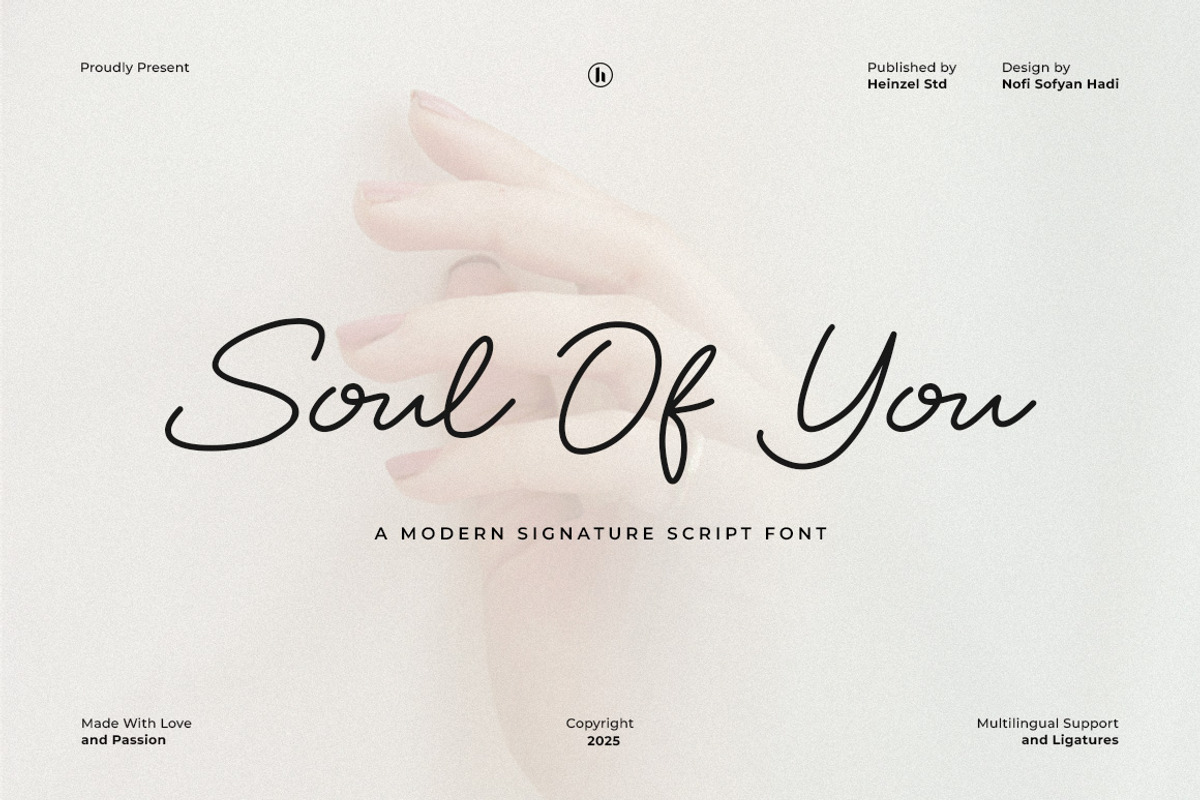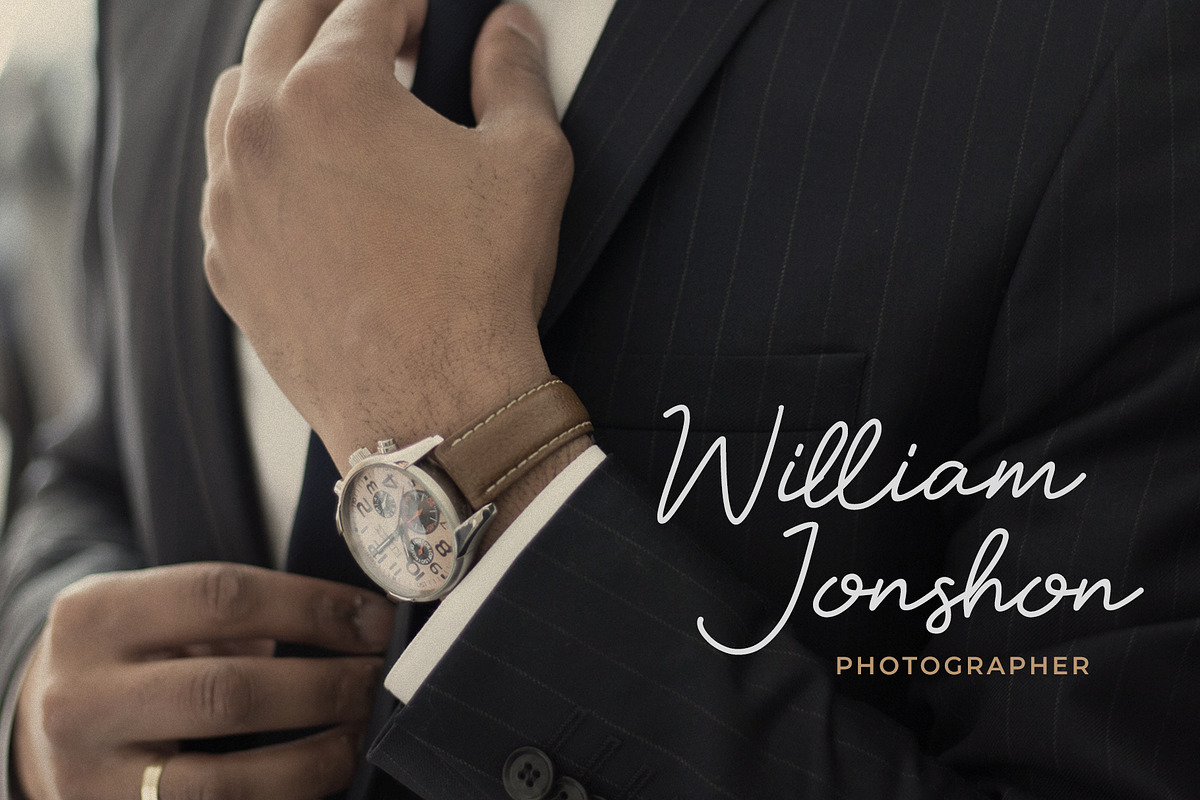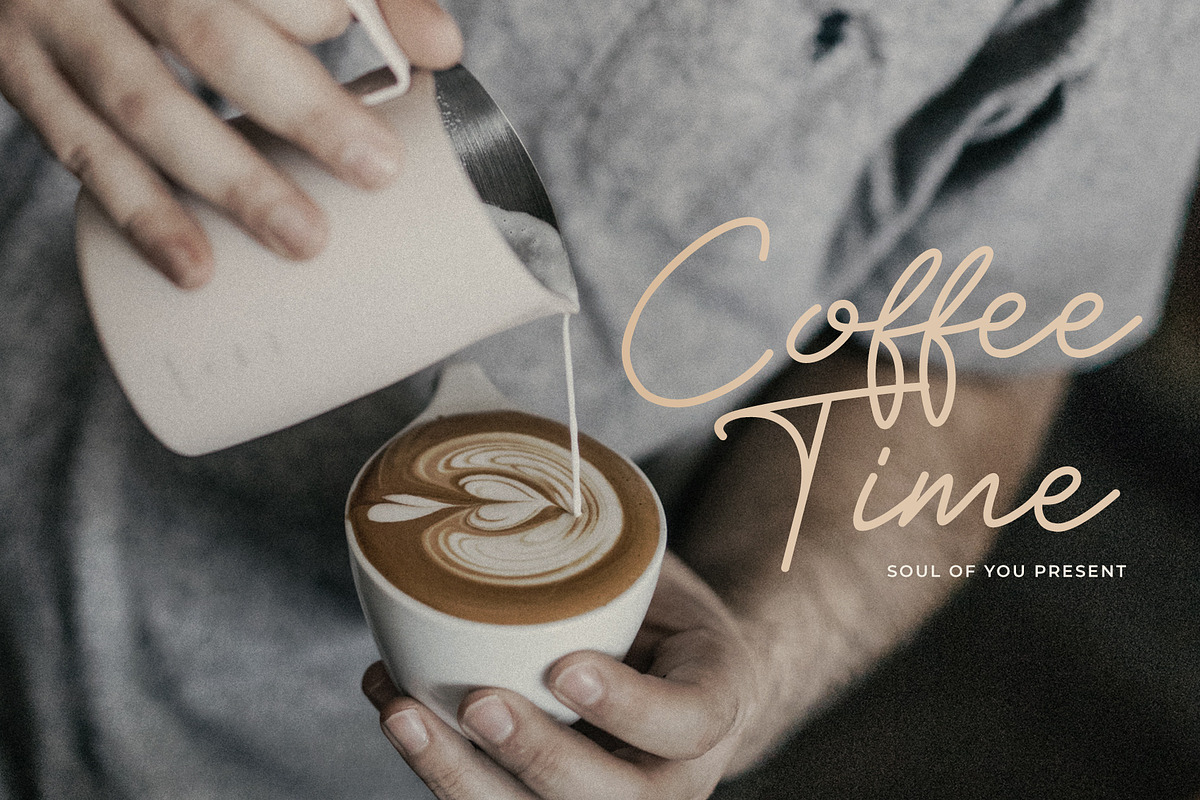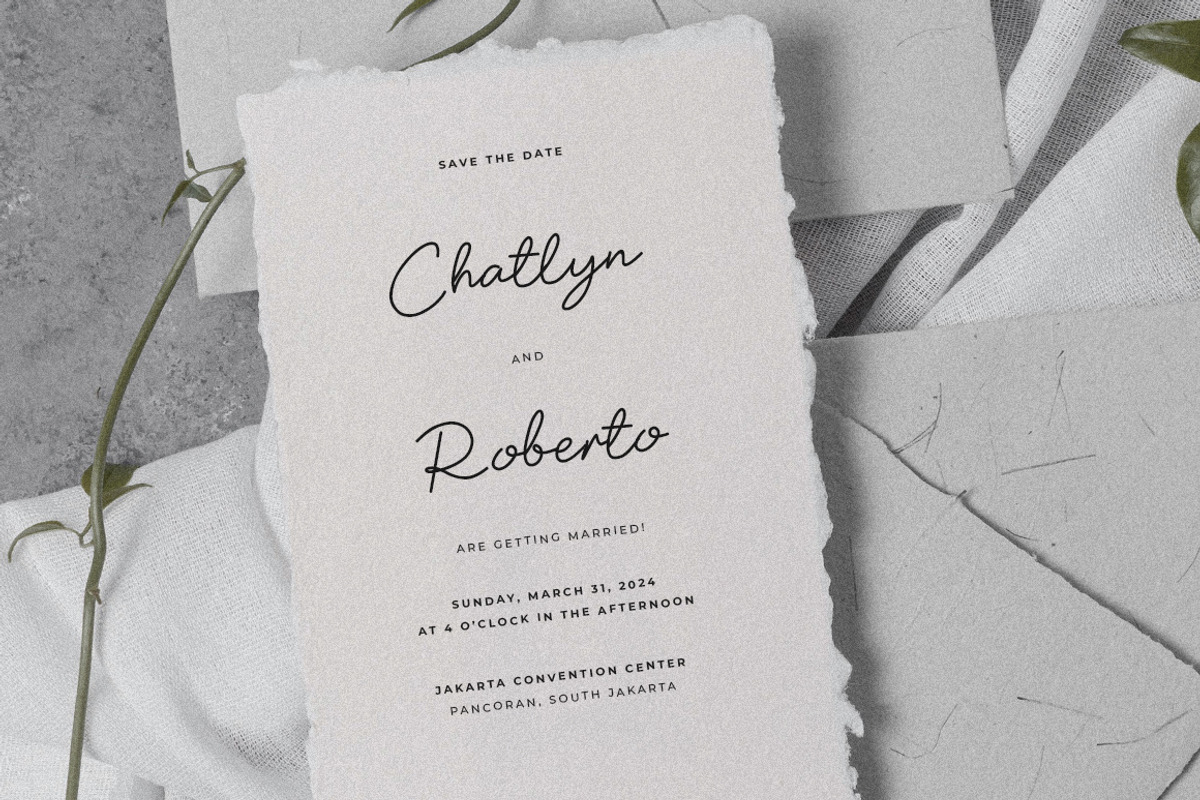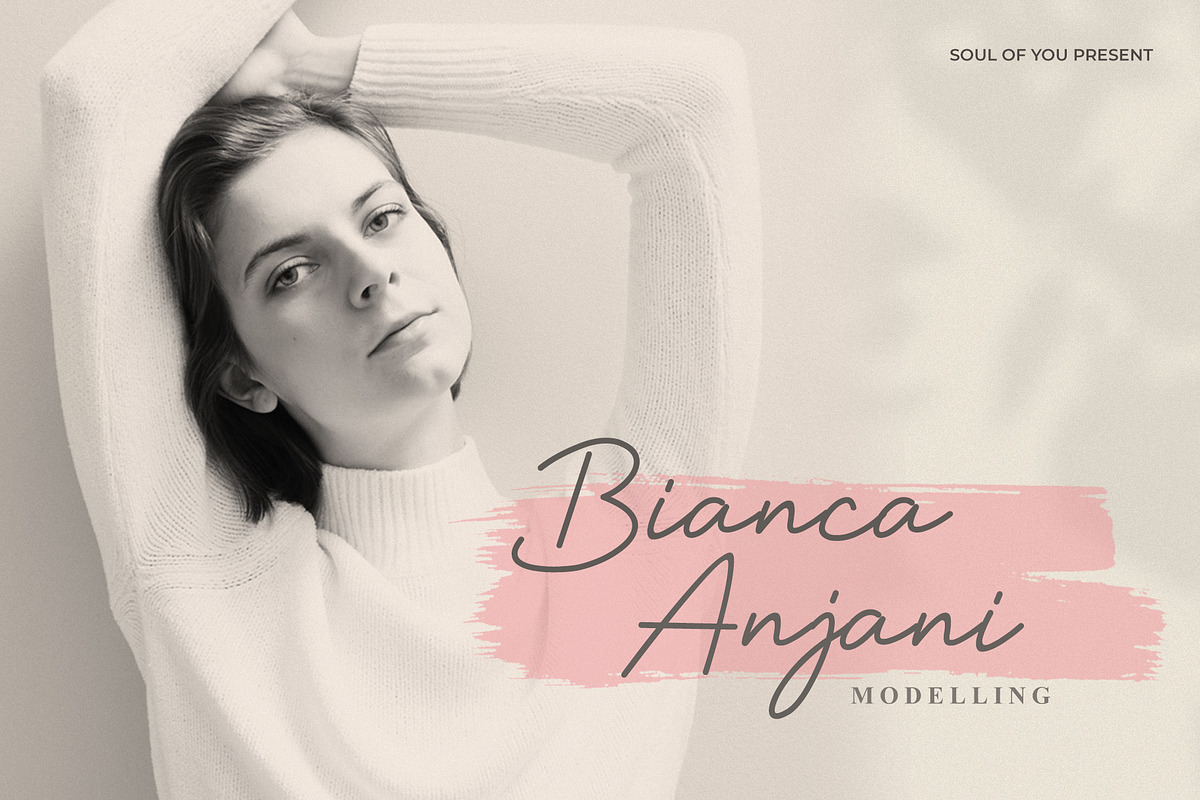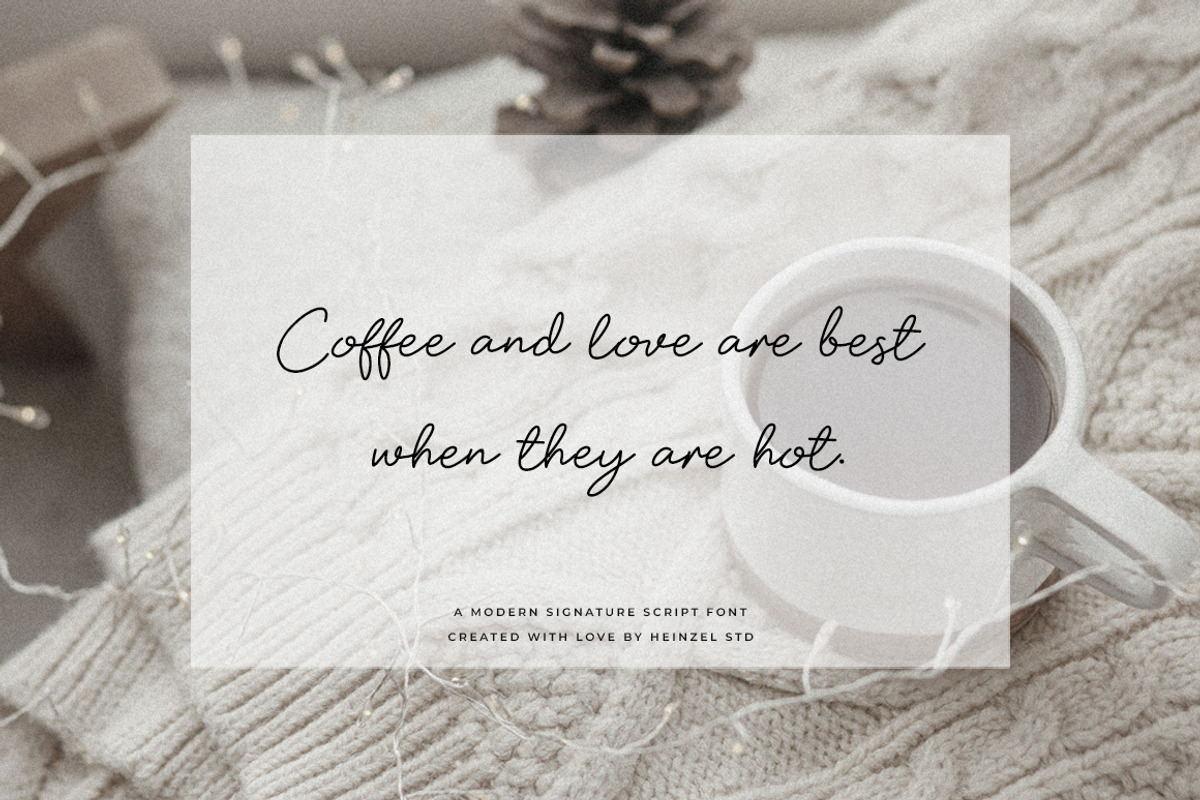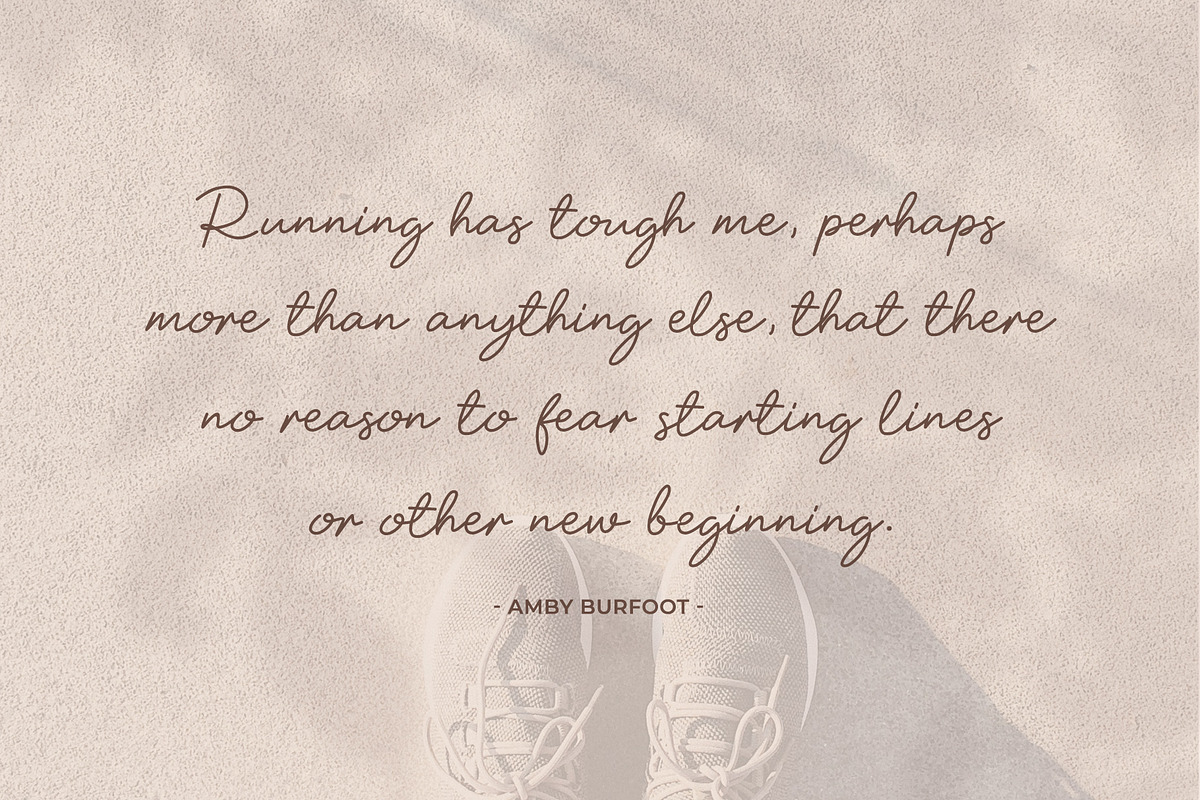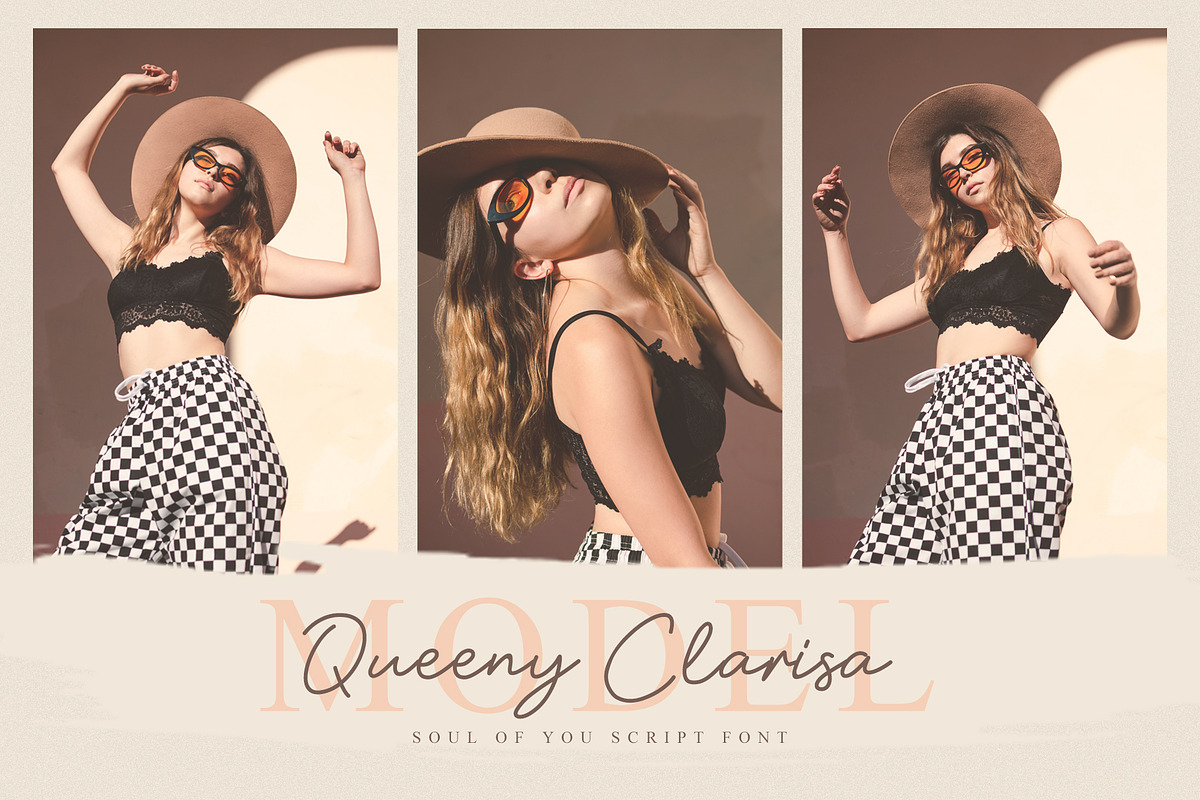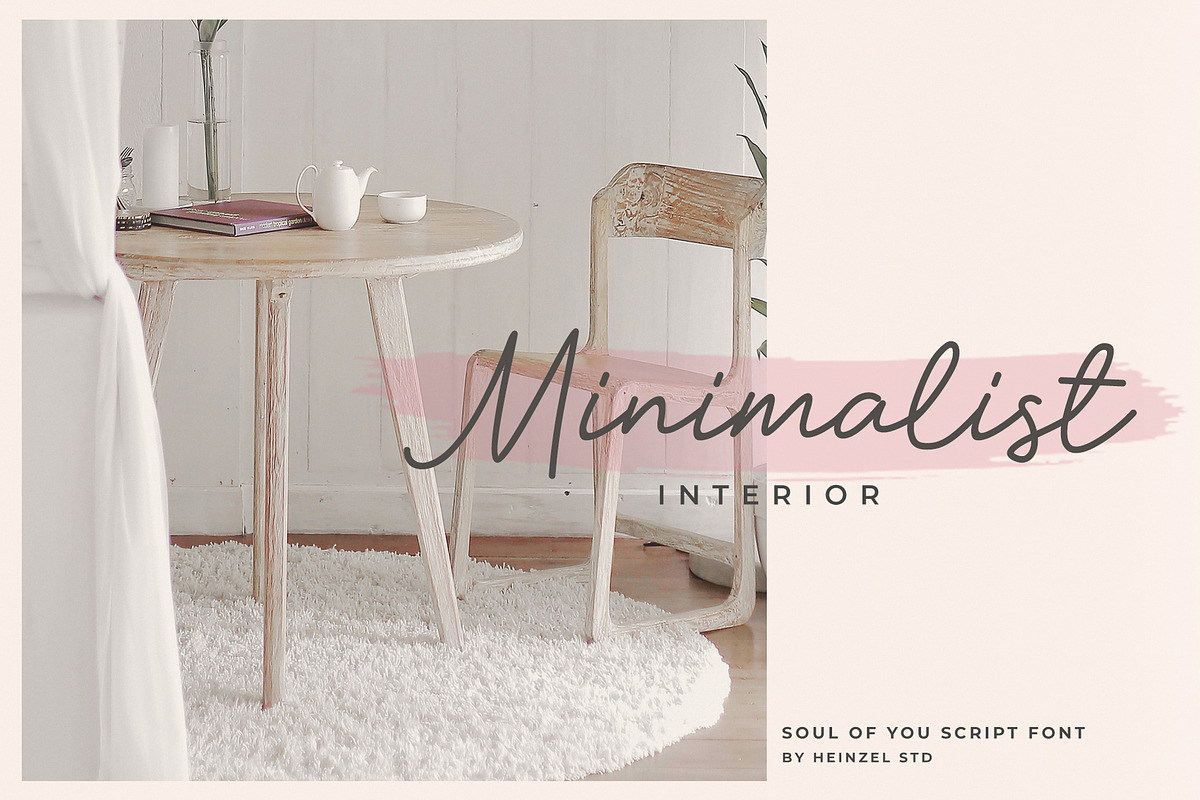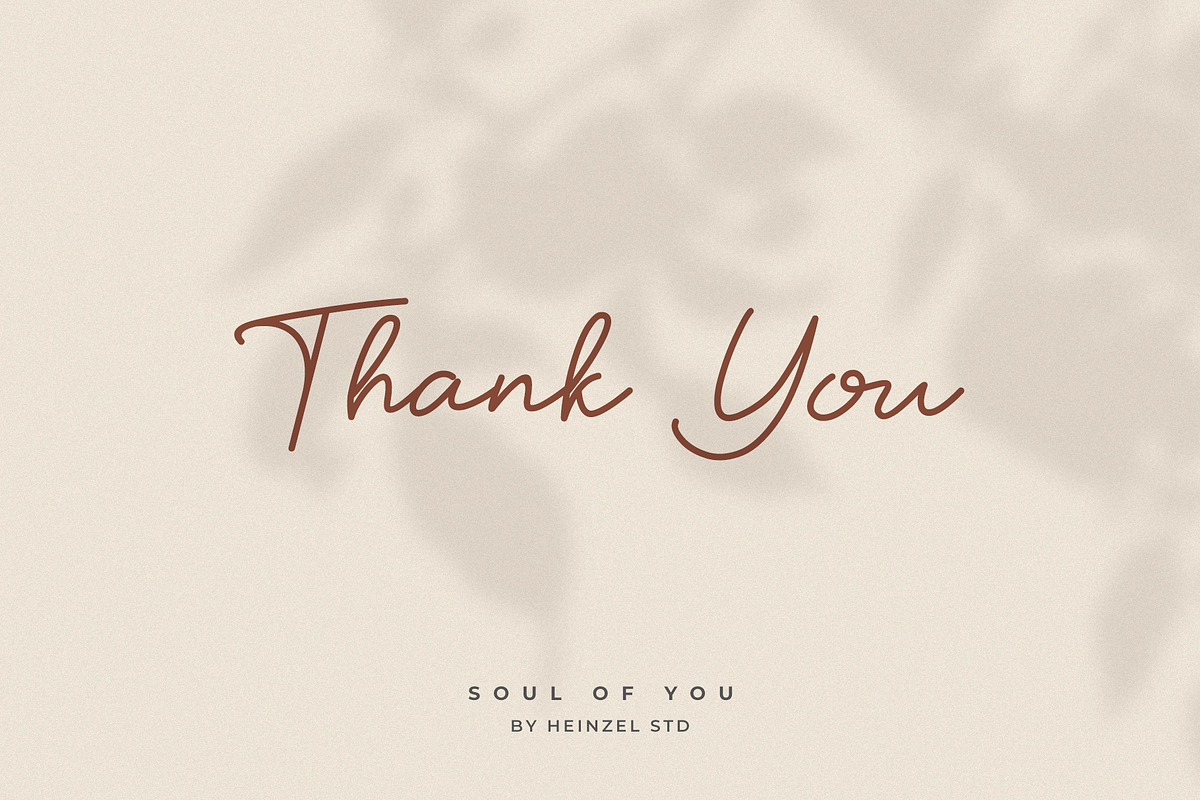
Soul Of You Modern Script Font
Soul Of You is a modern script font, described by an elegant touch, perfect for your favorite projects. It looks stunning on wedding invitations, thank you cards, quotes, greeting cards, logos, business cards, and every other design that needs a handwritten touch. Fall in love with its incredibly distinct and timeless style and use it to create spectacular designs!
Soul Of You Features:
This character set supports the following 21 languages: Afrikaans, Basque, Breton, Catalan, Danish, Dutch, English, Finnish, French, Gaelic (Irish, Scots), German, Icelandic, Indonesian, Irish, Italian, Norwegian, Portuguese, Saami (Southern), Spanish, Swahili, Swedish.